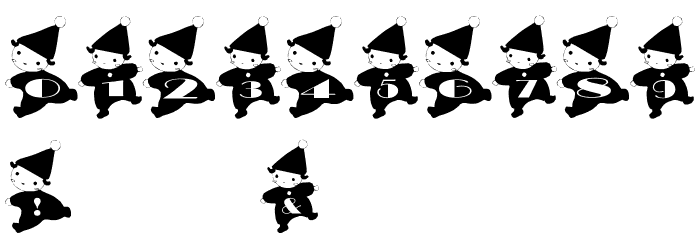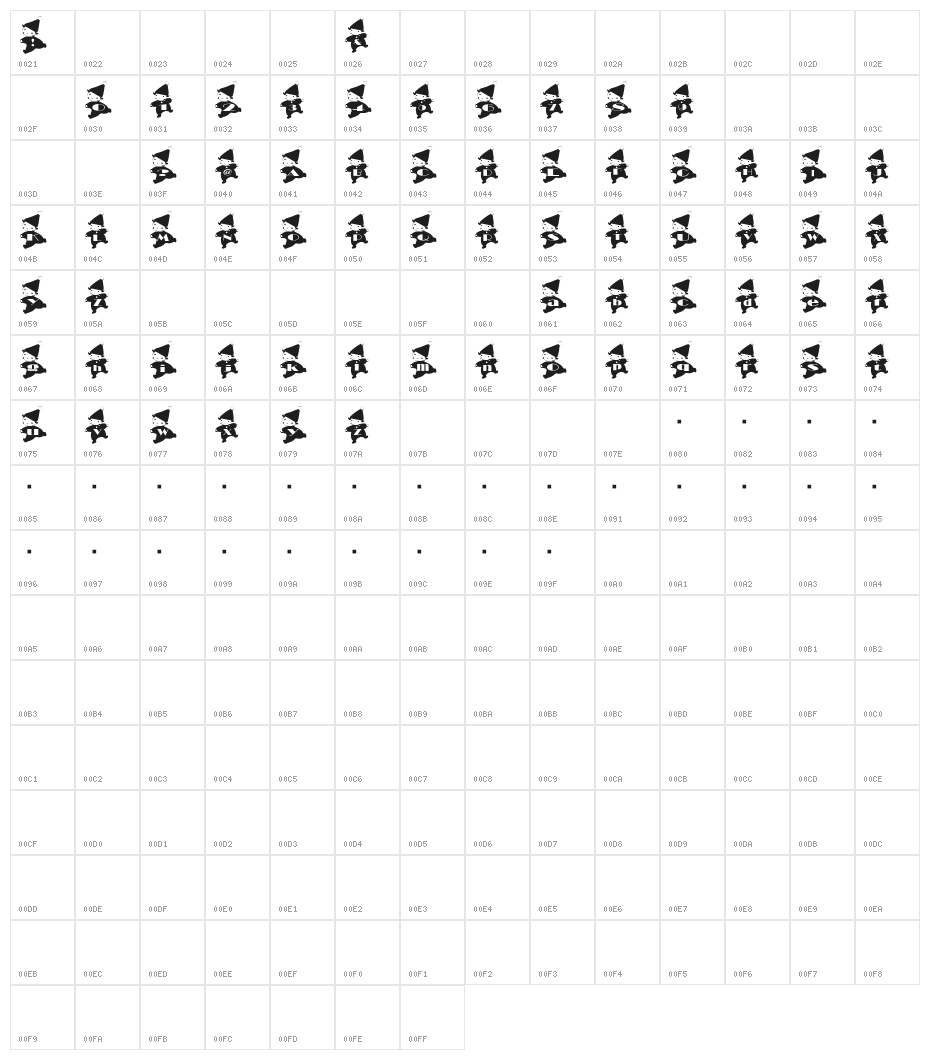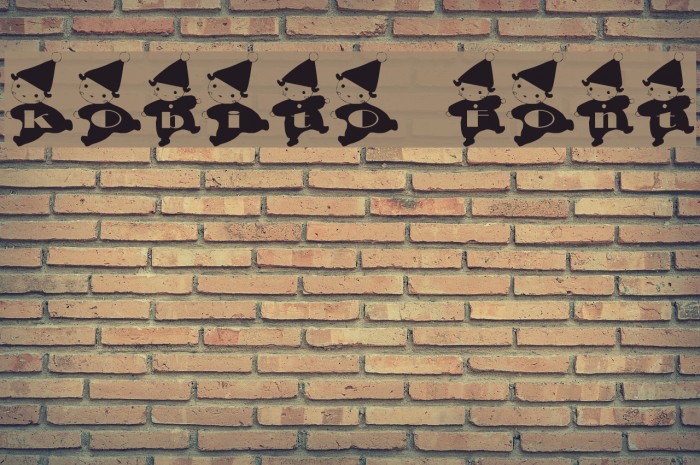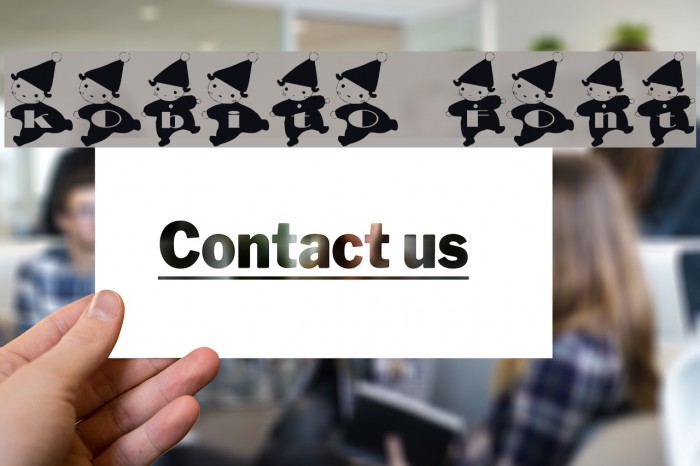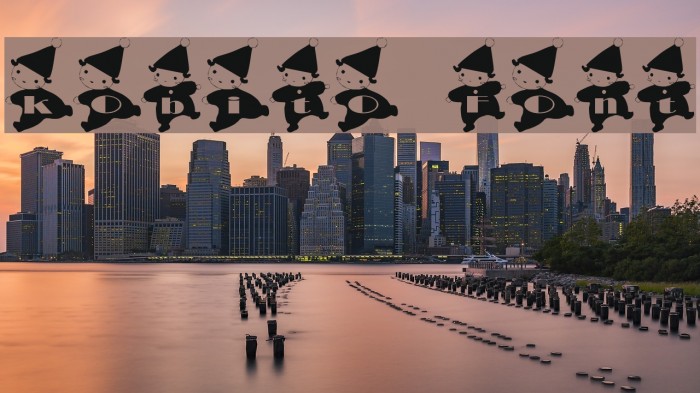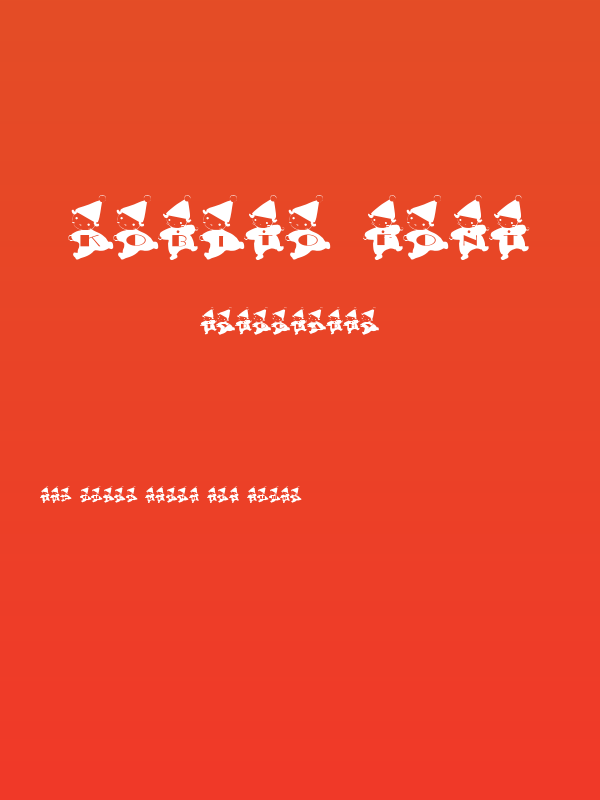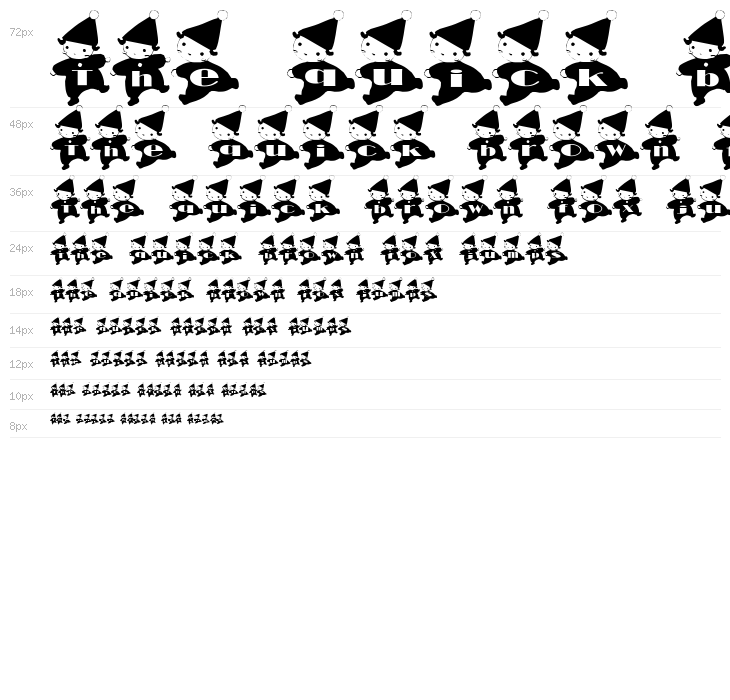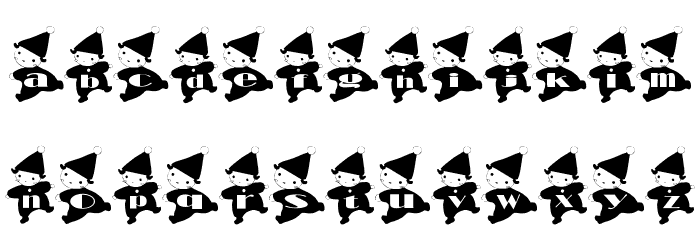
kobito Font Font
kobito Font Description
This whimsical and playful font features characters integrated into a charming design where each letter and number is accompanied by a small, cartoon-like figure wearing a pointed hat. The figures are consistent across all characters, adding a unique and cohesive visual element. The bold, black silhouettes create a striking contrast, making the characters stand out. This font is perfect for projects that require a fun and engaging aesthetic, such as children's books, playful branding, or festive invitations. Its decorative nature makes it more suitable for headlines or short text rather than body copy.
| Proposed Projects | Ideal for children's books, playful branding, festive invitations, and decorative headlines. |